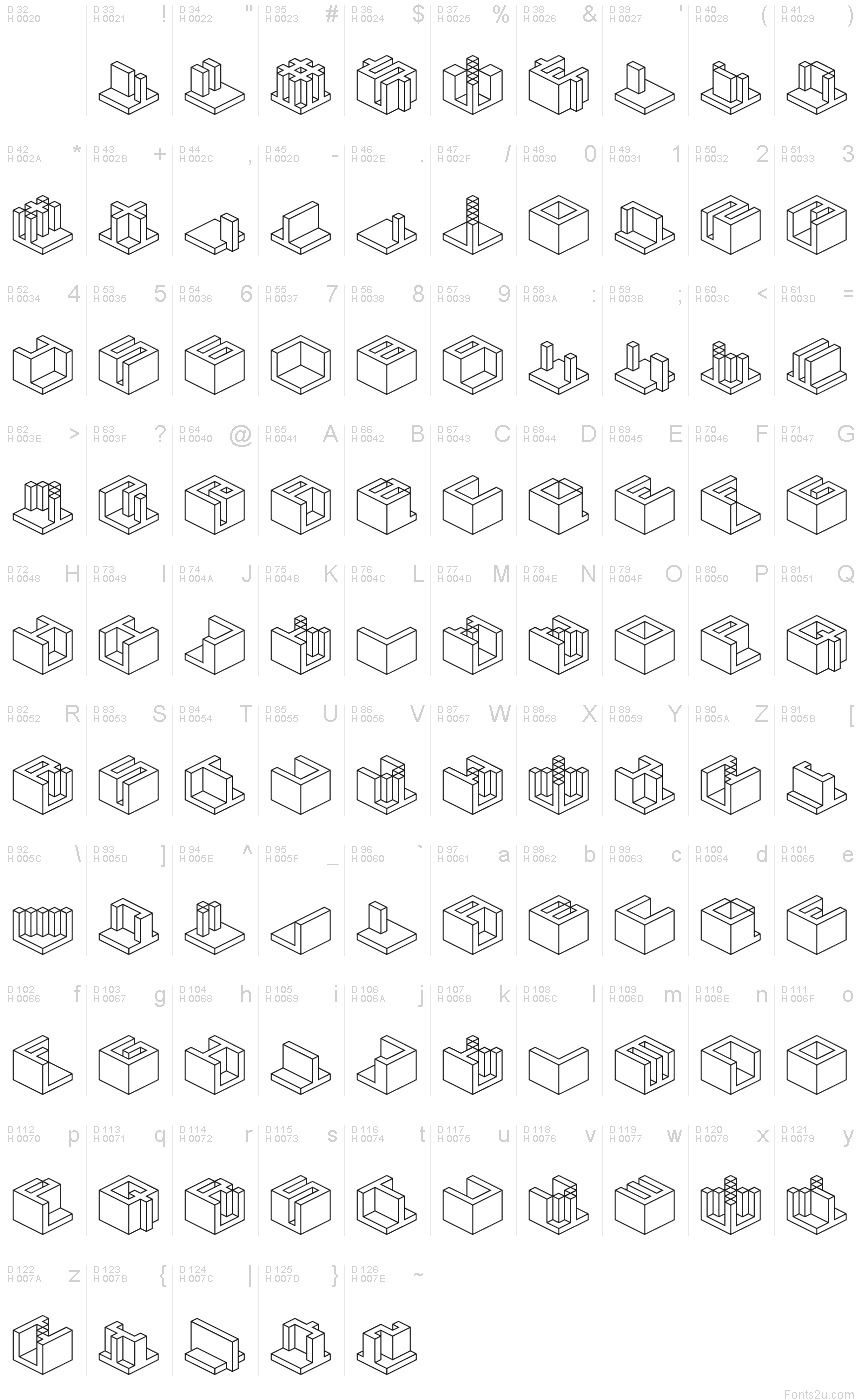
Qbicle 4 BRK
Qbicle 4 BRK by AEnigma Fonts is a free 3D geometric caps display font built from cube-like forms and clean isometric outlines. The letters feel like little open boxes set on a grid, with deep corners, cutaway tops, and a crisp architectural rhythm that keeps the alphabet playful without losing its hard-edged logic.
It fits poster headlines, game graphics, tech branding, packaging, and title cards where the lettering can act like a set of tiny objects. As a free font, it also works well for monograms and short cover lines, because the caps read less like flat type and more like stacked blocks drawn in space.